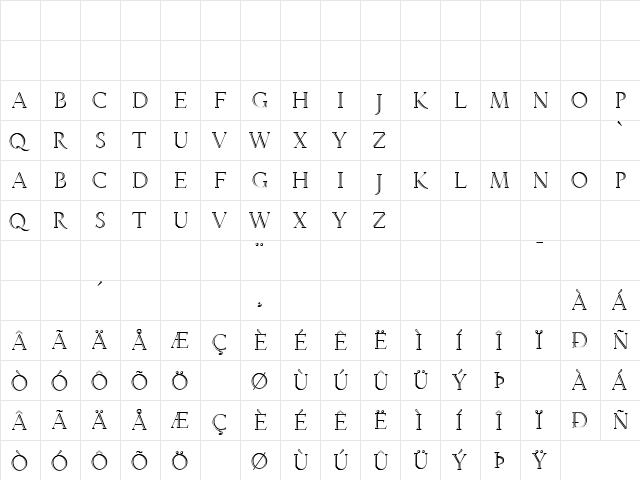
LTVenezia Initiale Initiale
Design Context for LTVenezia Initiale Typeface
LTVenezia Initiale takes a measured approach to typography — its balanced proportions and neutral character make it a reliable workhorse for both digital and print work.